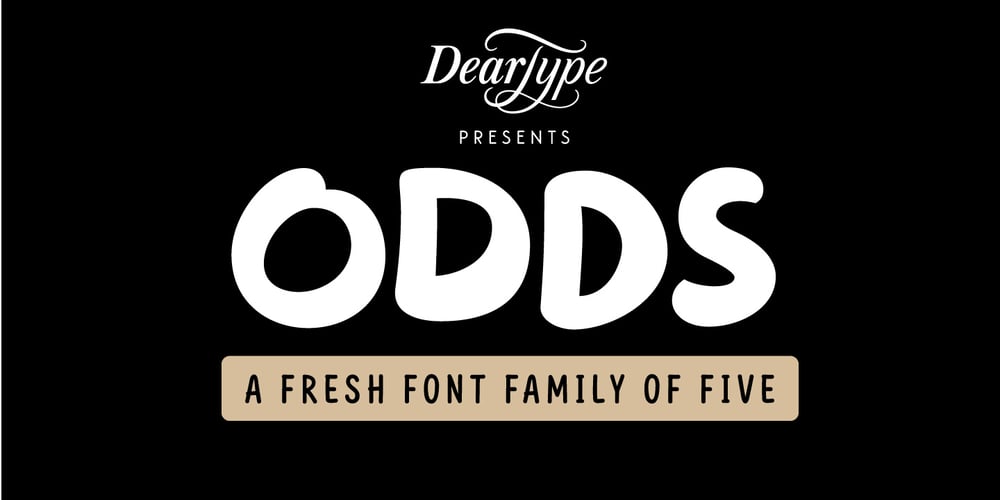
Odds
Odds font
Odds Font Family was designed by Veneta Rangelova and published by DearType. Odds contains 5 styles and family package options. Say hello to Odds – a versatile, chunky casual sans with lots of personality! It’s fresh, friendly and easy to read. It is also a great mix of boldness and cuteness, so it definitely captures attention. The Odds family comes in five distinct fonts styles : – Odds – an artistic handwritten-style sans – Odds Sans – a typical neat and clean sans (caps and small caps which you can mix & match) – Odds Narrow – a cute handwritten narrow sans (uppercase and lowercase), and two awesome sets of goodies: – Odds Extras – borders, arrows, speech bubbles, etc. – Odds Symbols – palm leaves, plants, fruits and other useful objects. Odds works great on a variety of mediums from web to print, but you can find it particularly useful if you’re designing food packaging (actually any packaging) and clothes. Other awesome usages include posters, signage, ads, printed and personalized cards, t-shirts, sale banners, everything kids related – merchandise, toys, you name it. Its quirky character and fat letters make up for bold and friendly presentation while the slender letters of the Odds Sans and Odds Narrow are perfect for plain text. And yes, all fonts have Cyrillic! They also have some neat ligatures and alternates to spice up your designs and create more interest!